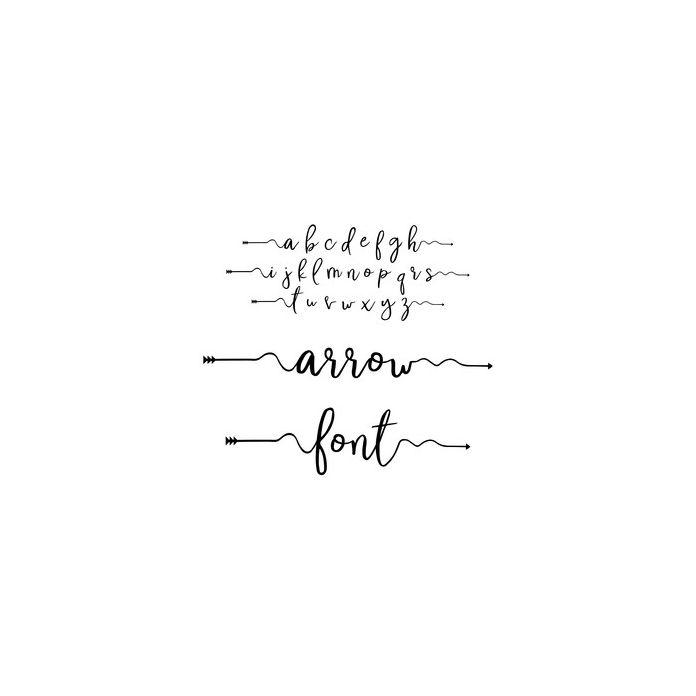
This font includes all lowercase letters. To access the letters with end and point of the arrow, use uppercase for arrow end and use this character key for arrow point: 0-a, 1-b, 2-c, 3-d, 4-e, 5-f, 6-g, 7-h, 8-i, 9-j, *-k, \-l, :-m, !-v, #-o, ;-p, _-q, {-r, }-s, [-t, ]-u, (-v, )-w, =-x, $-y, +-z.